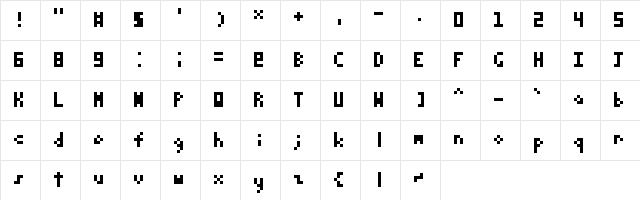
3 by 5 Regular
Designer: hakr14
Design Context for 3 by 5
3 by 5 is a composed and adaptable typeface that performs quietly and consistently across a wide range of design contexts.